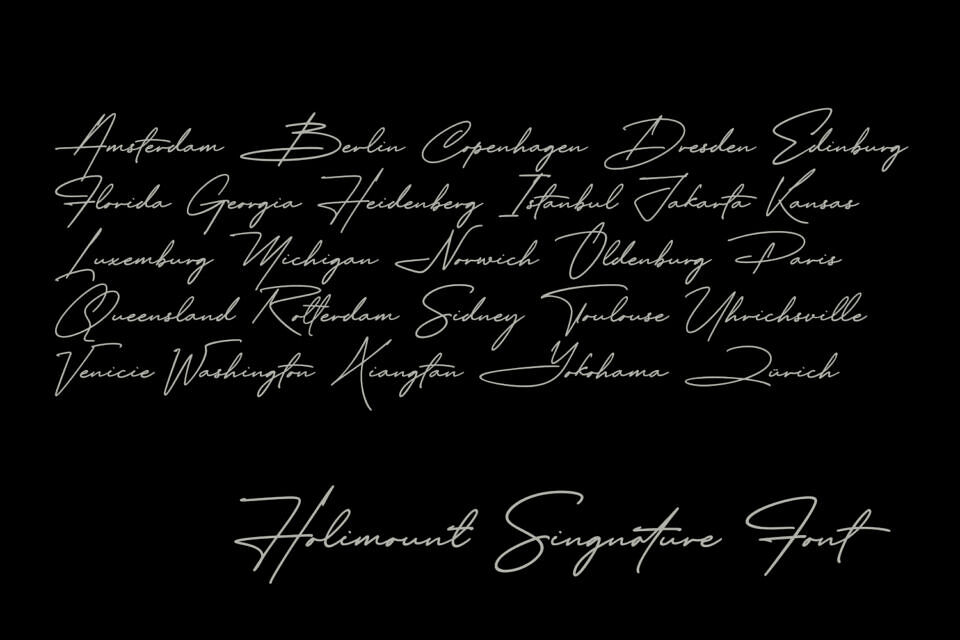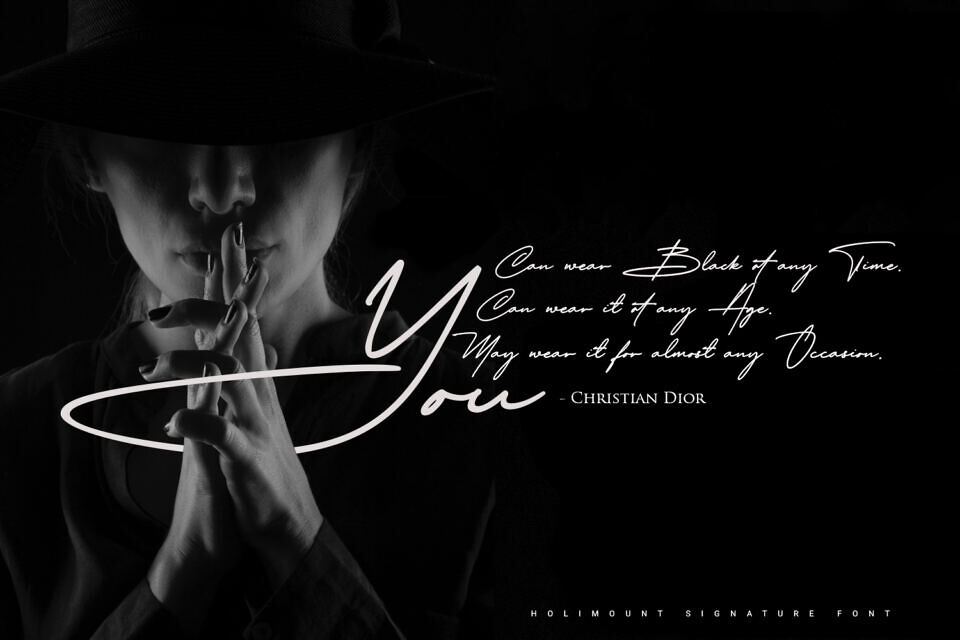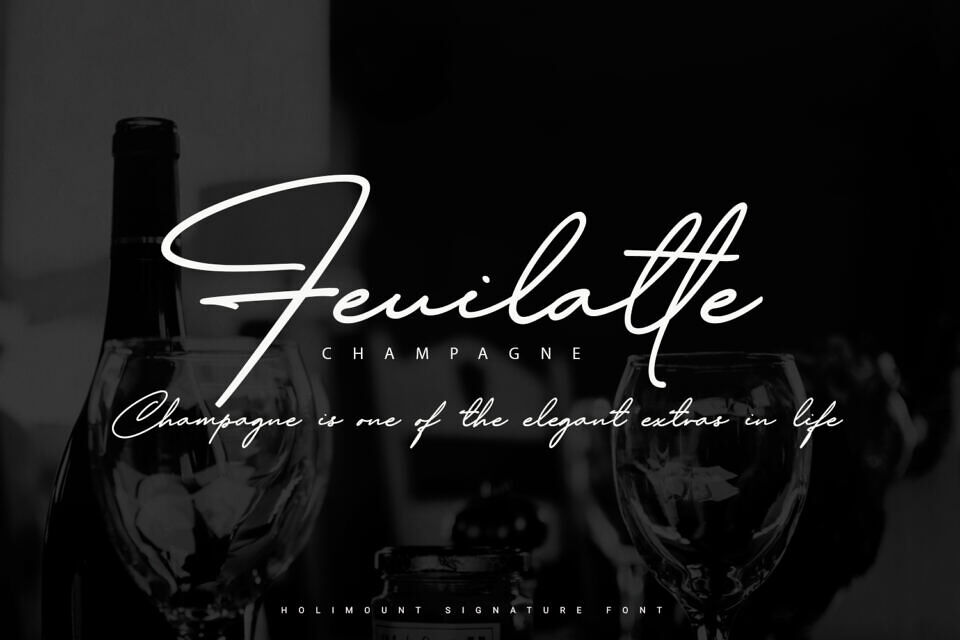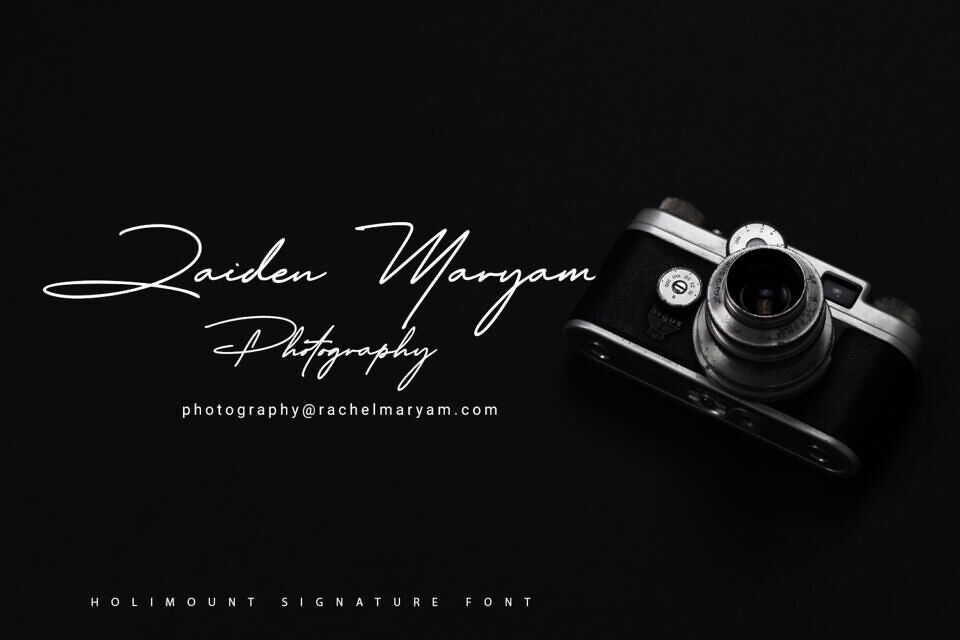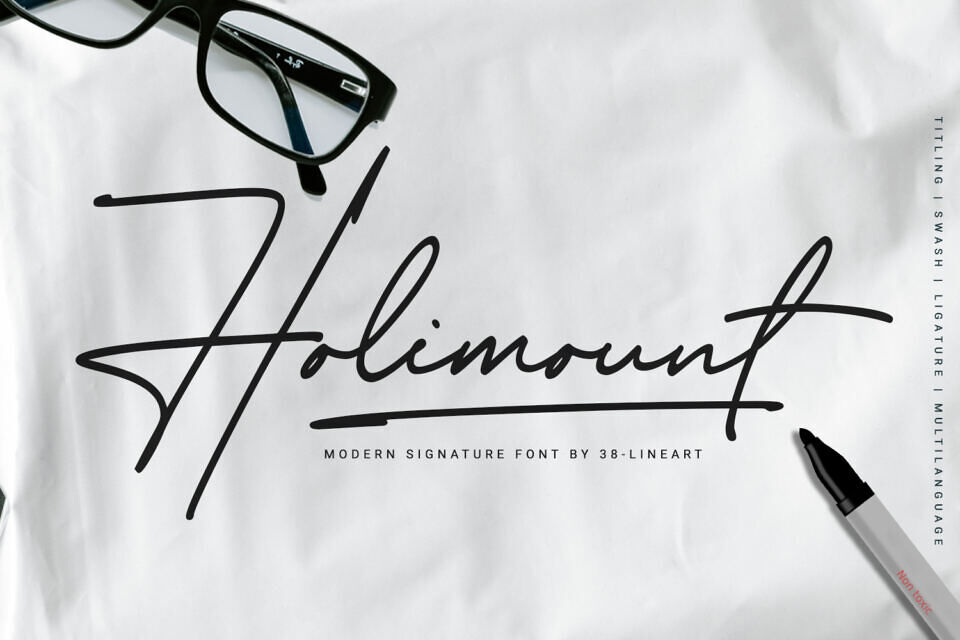
Holimount Font
Our research on signature fonts revealed key features: prominent uppercase initials with extended ascenders and descenders; seamlessly connected lowercase letters flowing rhythmically; optional long horizontal lines at start/end, supported by alternate titling and swashes; a conical shape tapering from large to small, with possible end emphasis; essential ligatures for unique combinations; and decorative underlines via 26 swashes.
Holimount embodies these in a masculine, elegant, mysterious font that captivates and invites curiosity about your brand.